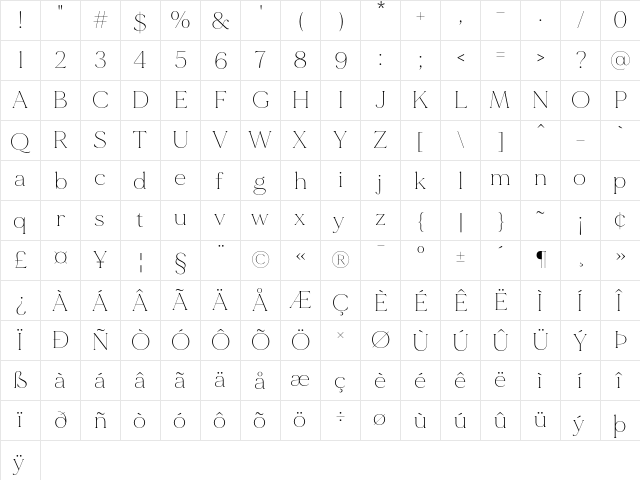
MADE Mirage Thin
| Foundry | MadeType |
| Designer | MadeType |
Design Context for MADE Mirage Typeface
MADE Mirage takes a measured approach to typography — its balanced proportions and neutral character make it a reliable workhorse for both digital and print work. Its slender proportions lend an understated elegance to any composition.